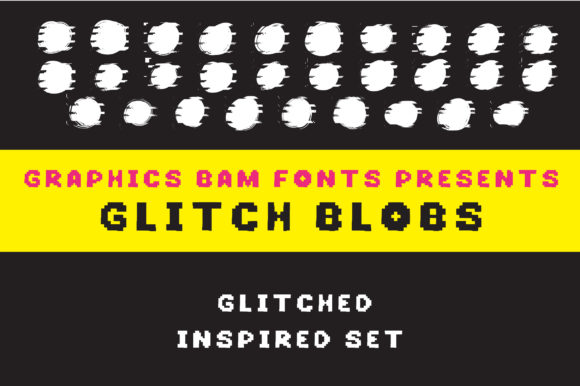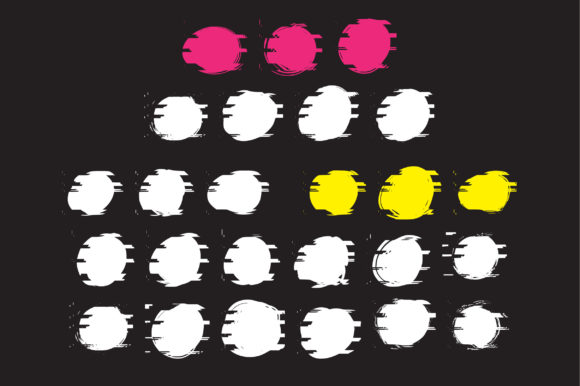
About Glitch Blobs Font
Absolutely! “Glitch Blobs” is a cool and uniquely shaped dingbats font that adds a distorted and trendy touch to your designs. With its pixelated and glitchy style, this font is perfect for creating an edgy and modern aesthetic while incorporating unique blob-shaped symbols.
The glitchy and pixelated blobs in “Glitch Blobs” give your designs a futuristic and unconventional look. The distorted textures and irregularities in the shapes add a sense of digital disruption and create a visually intriguing effect.
This font is ideal for projects where you want to incorporate abstract or organic blob elements with a modern twist. Whether you’re working on posters, album covers, branding materials, or any other design that calls for a contemporary and innovative style, “Glitch Blobs” can add a unique and eye-catching flair.
The pixelated and distorted nature of the font gives the blobs a distinctive and unconventional appearance. It can be used to create patterns, backgrounds, icons, or even as decorative elements within larger compositions.
The glitchy effect in “Glitch Blobs” adds a sense of digital disruption and experimentation, making it perfect for projects that embrace a modern and edgy aesthetic. It can be particularly well-suited for designs related to technology, music, art, or any creative field that seeks to convey a sense of innovation and uniqueness.
Additionally, the pixelated style of “Glitch Blobs” can evoke a nostalgic feeling reminiscent of retro video games or old computer graphics. This adds a layer of nostalgia and vintage appeal to your designs, making them visually engaging and intriguing.
Overall, “Glitch Blobs” is a cool and uniquely shaped dingbats font that brings a distorted and trendy touch to your designs. Its pixelated and glitchy style adds a sense of digital disruption and creativity to your projects, while allowing you to incorporate unique blob-shaped symbols.
So go ahead and explore the possibilities of “Glitch Blobs” to create visually striking and unconventional designs. Let its pixelated and distorted blobs add an edgy and modern aesthetic to your artwork and make your designs stand out with unique and distinctive elements.